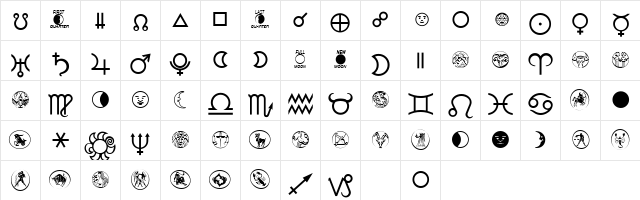
Complete AstrologyP03 Medium glyph index. Displaying only characters natively supported by AstrologyP03 Medium font.
AstrologyP03 is a composed and adaptable typeface that performs quietly and consistently across a wide range of design contexts.